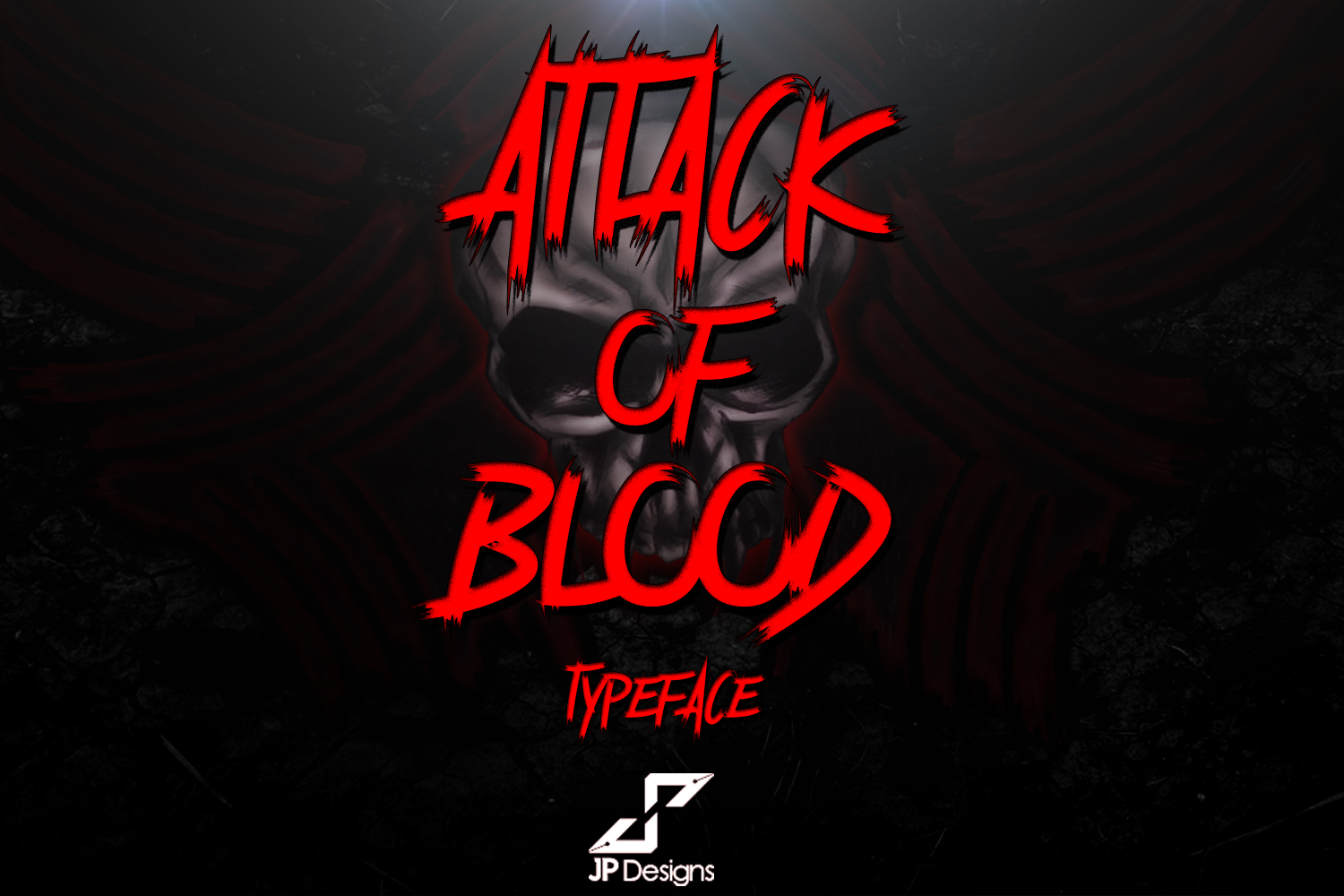
Attack of blood Font
Attack of blood is a brutal style font created by Jorge Pérez of JP Designs, an aggressive style created with an equally aggressive brush that is the same representation of Heavy metal and is aimed at logo design with handwritten letters. Attack of blood is perfect for small rock bands projecting into big dreams, perfect for sublimation of t-shirts, signatures, logo identity and much more.